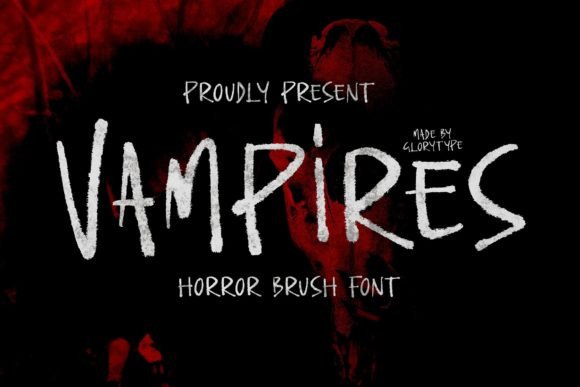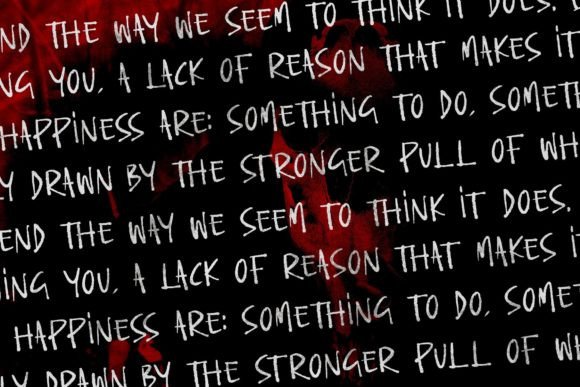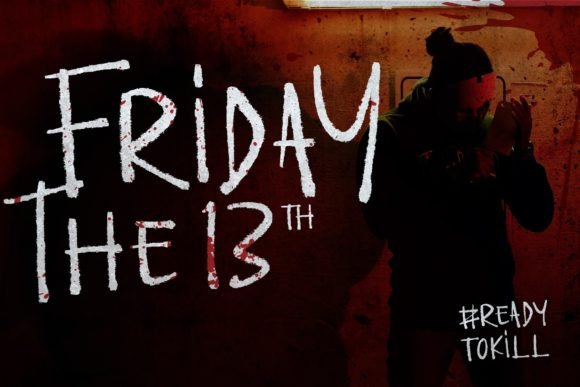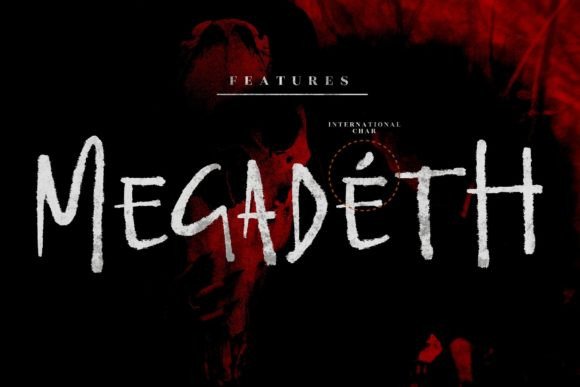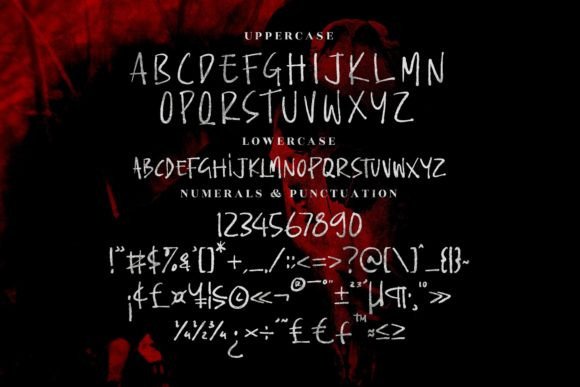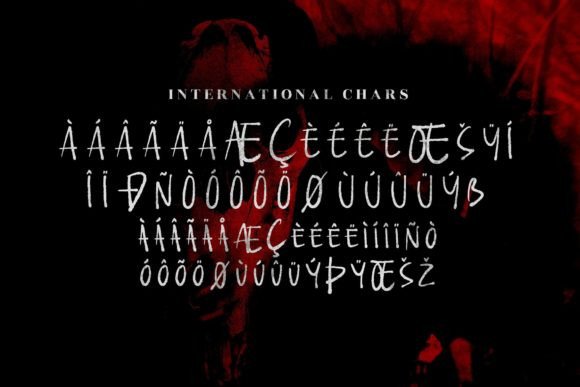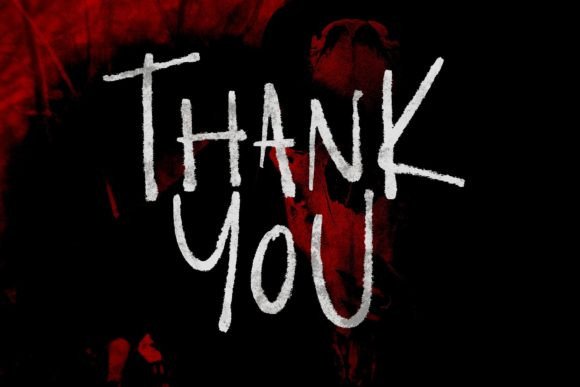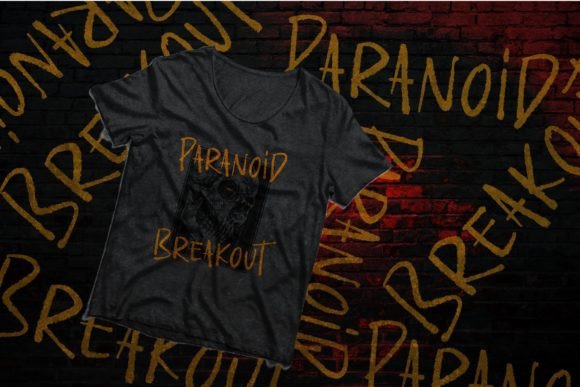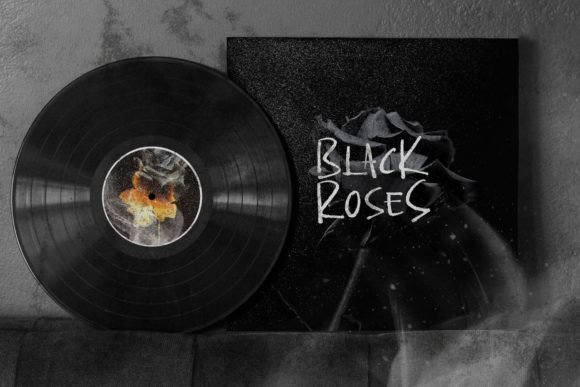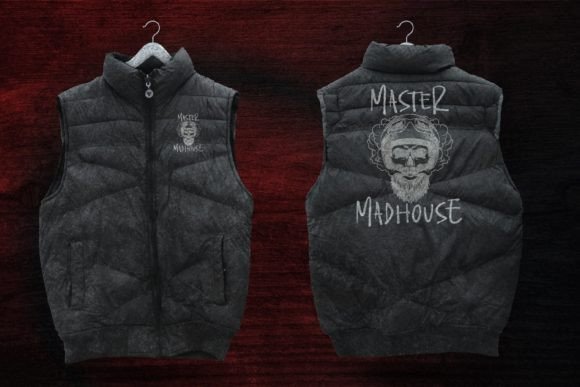
Vampires Font
About Vampires Font
“Vampires” is a horror handwritten font designed to add a daring and spooky touch to your projects. Its eerie and unsettling style makes it perfect for a wide range of applications, including logos, branding projects, homeware designs, product packaging, mugs, quotes, posters, shopping bags, T-shirts, book covers, name cards, invitation cards, greeting cards, labels, photography, watermarks, special events, and more. If you’re looking to infuse your designs with a touch of horror and mystery, “Vampires” is the ideal font choice.
The font’s handwritten script style captures the essence of horror and adds a creepy and unsettling vibe to your projects. Whether you’re creating spooky merchandise, designing horror-themed posters, or working on Halloween-themed products, “Vampires” enhances the visual impact of your designs, making them stand out with their daring and chilling aesthetic.
One of the notable features of “Vampires” is its versatility. Its horror-inspired design allows it to adapt to various contexts, making it suitable for both digital and physical applications. The font’s ability to convey a sense of mystery and fear makes it an excellent choice for projects that require a daring and unconventional script touch.
By incorporating “Vampires” into your projects, you’re infusing them with a sense of horror and intrigue. Its handwritten script style adds a chilling and mysterious atmosphere, making your designs visually captivating and memorable. Whether you’re a graphic designer, a merchandiser, or an individual working on creative projects, “Vampires” provides you with a daring and impactful font option to bring your horror-themed designs to life and leave a lasting impression on your audience.